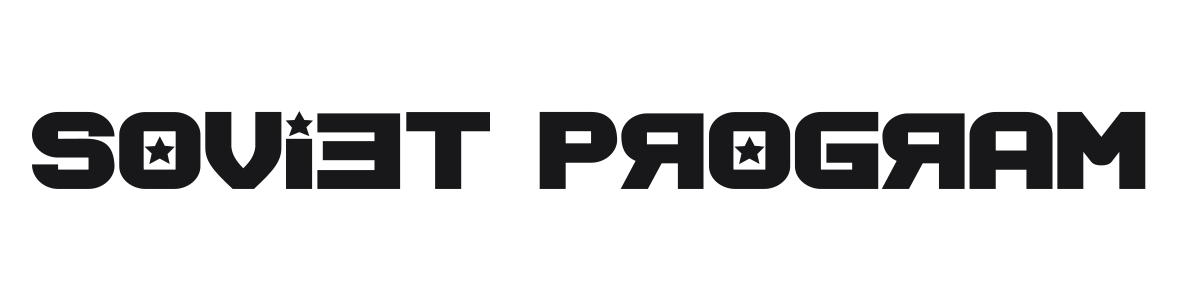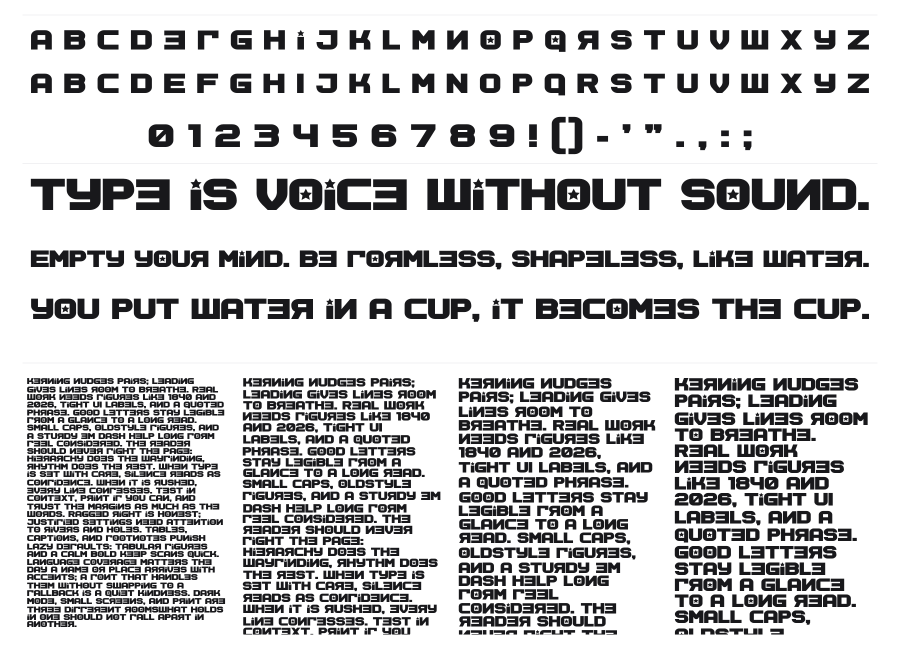
Soviet Program
Soviet Program is a bold square geometric sans with a heavy, grid-locked construction and sharp angular details that evoke Cold War-era propaganda typography. Star symbols embedded into select characters make the Soviet reference explicit rather than subtle. It works at large sizes for headlines, posters, and branding projects that need a commanding, ideological edge.